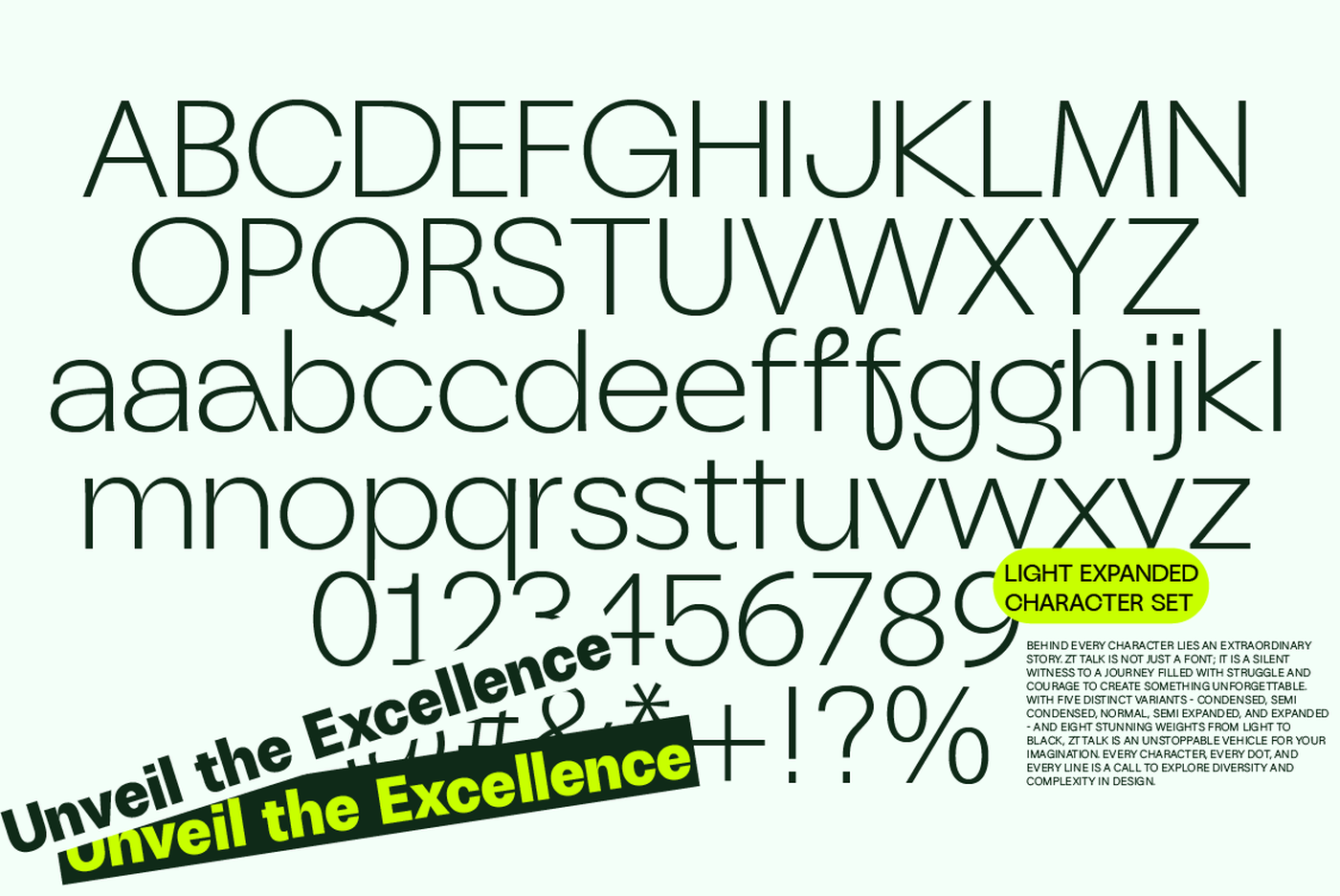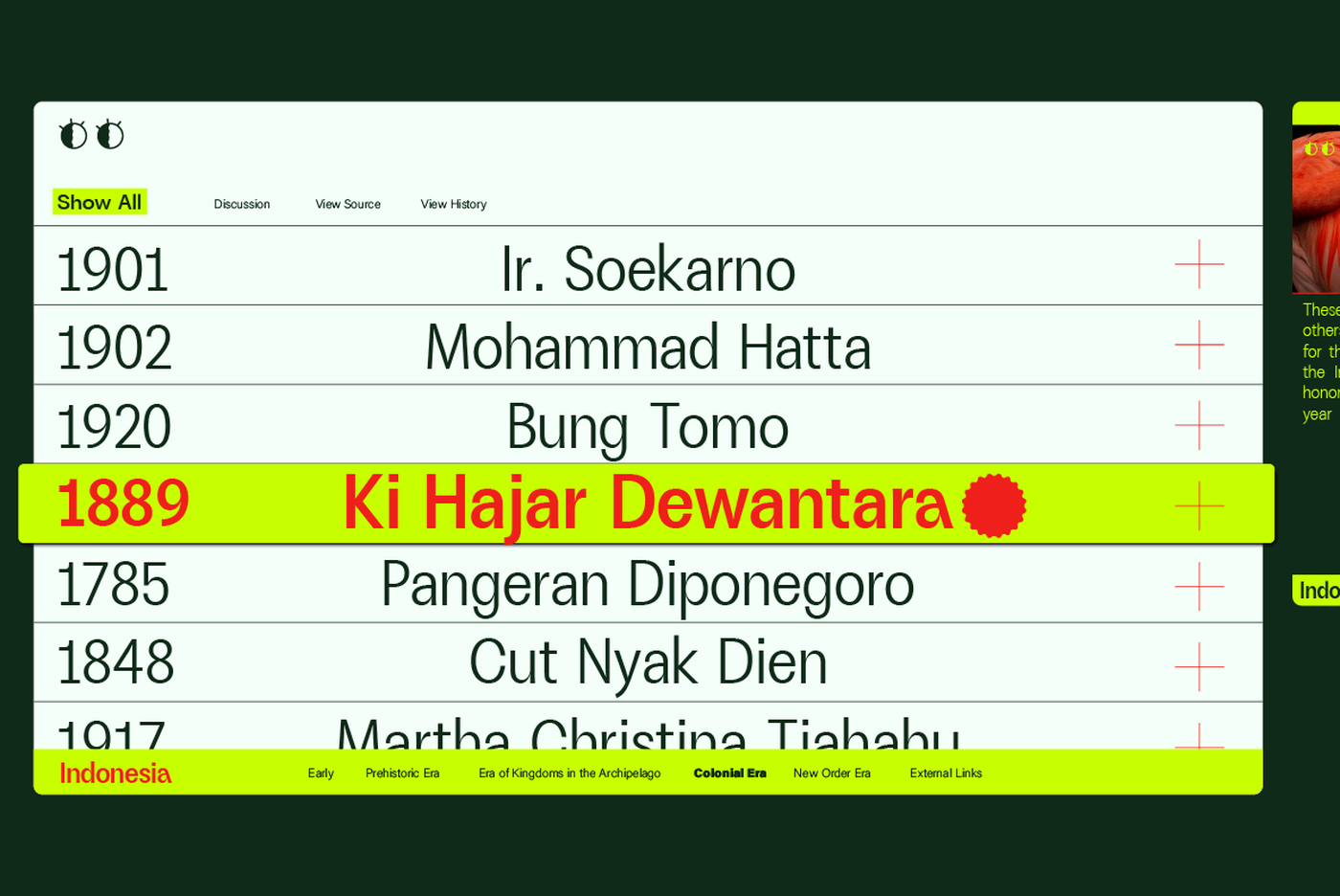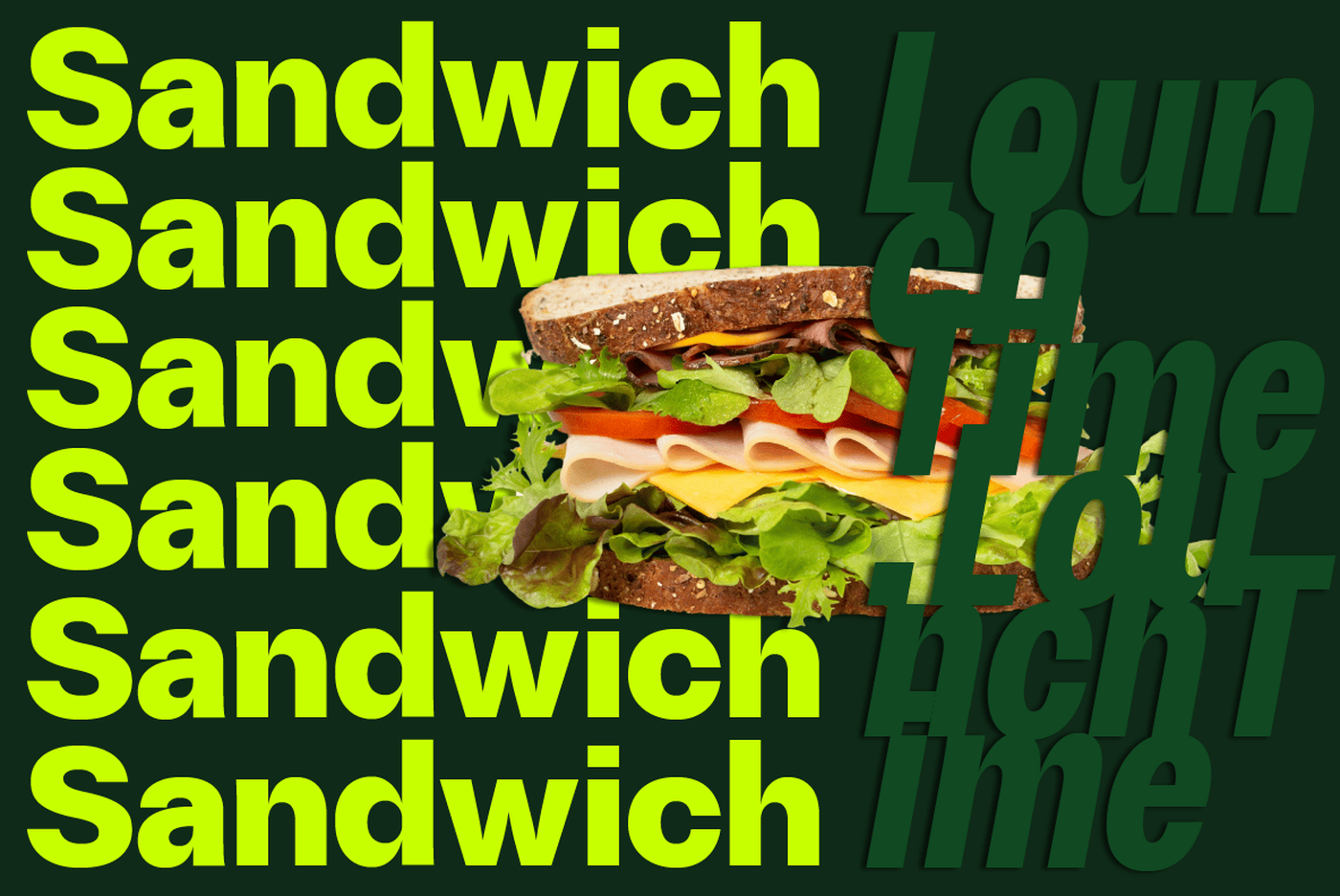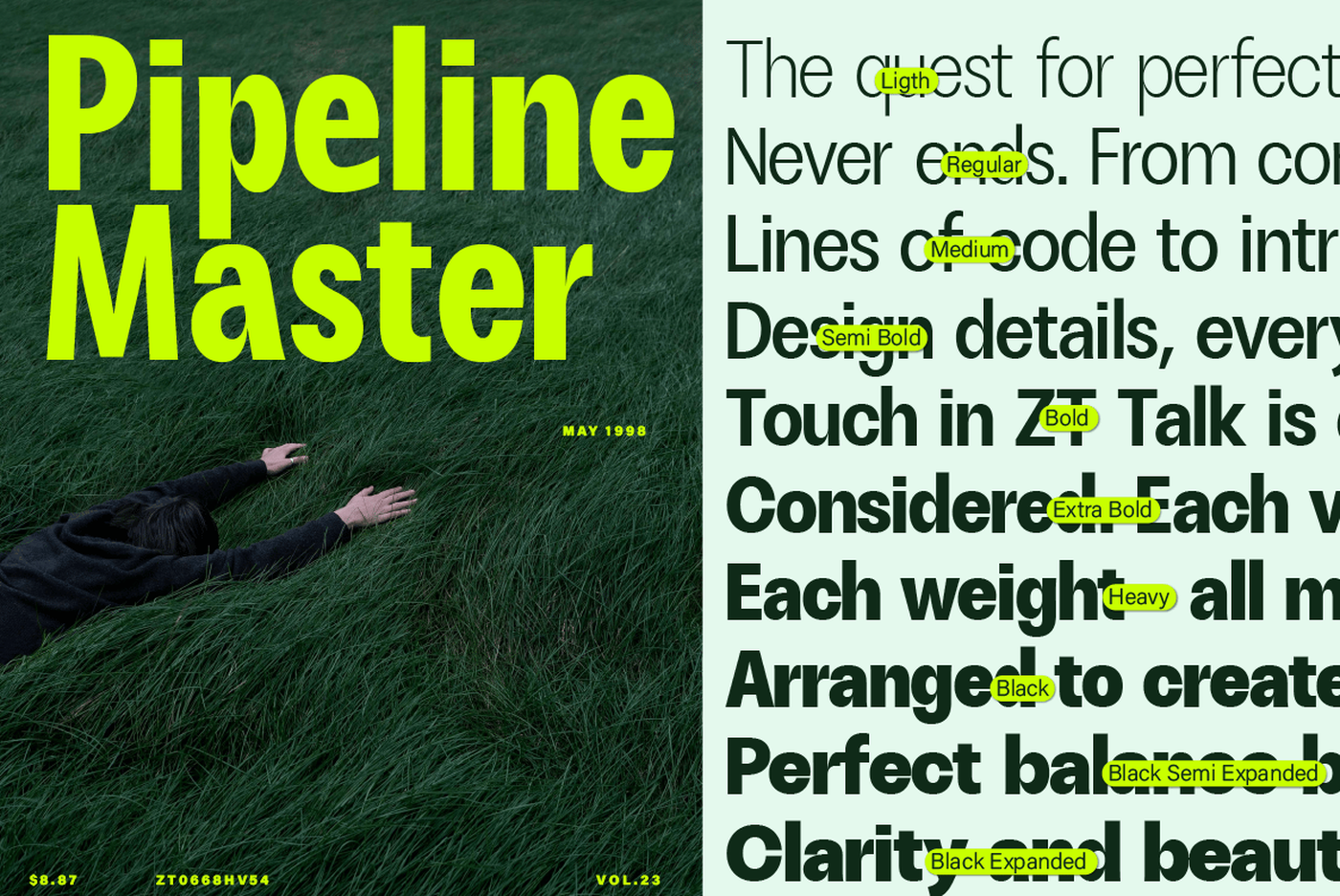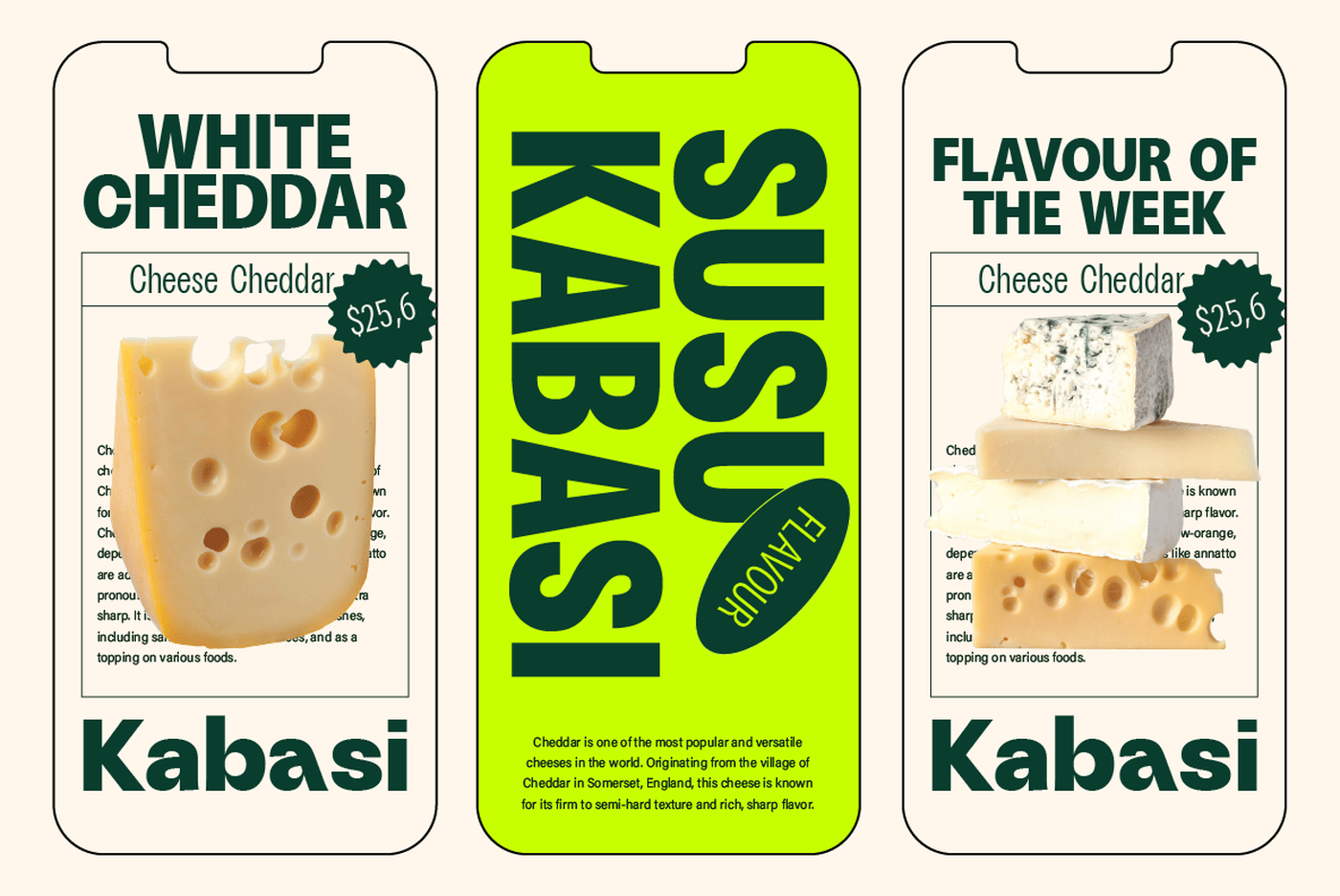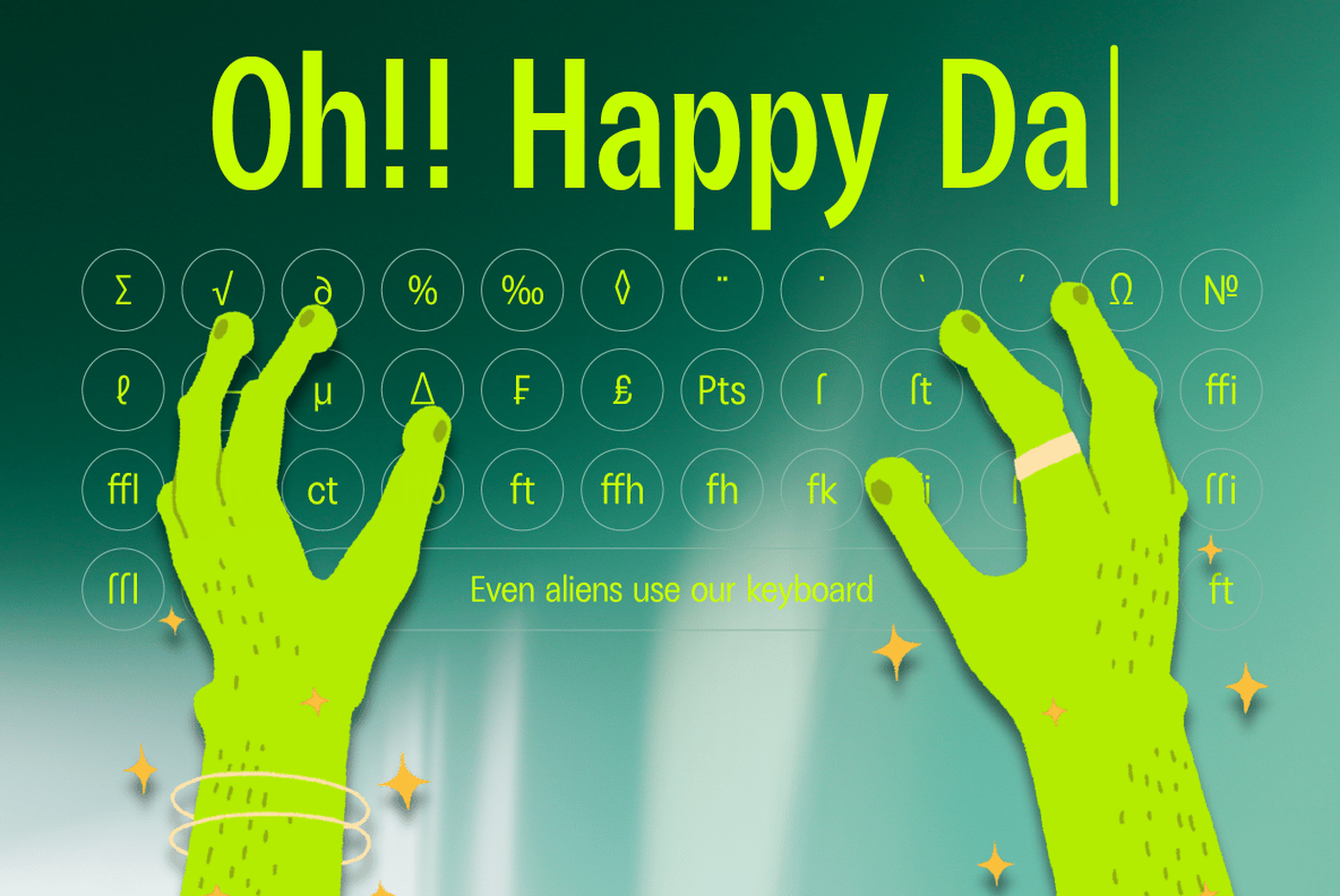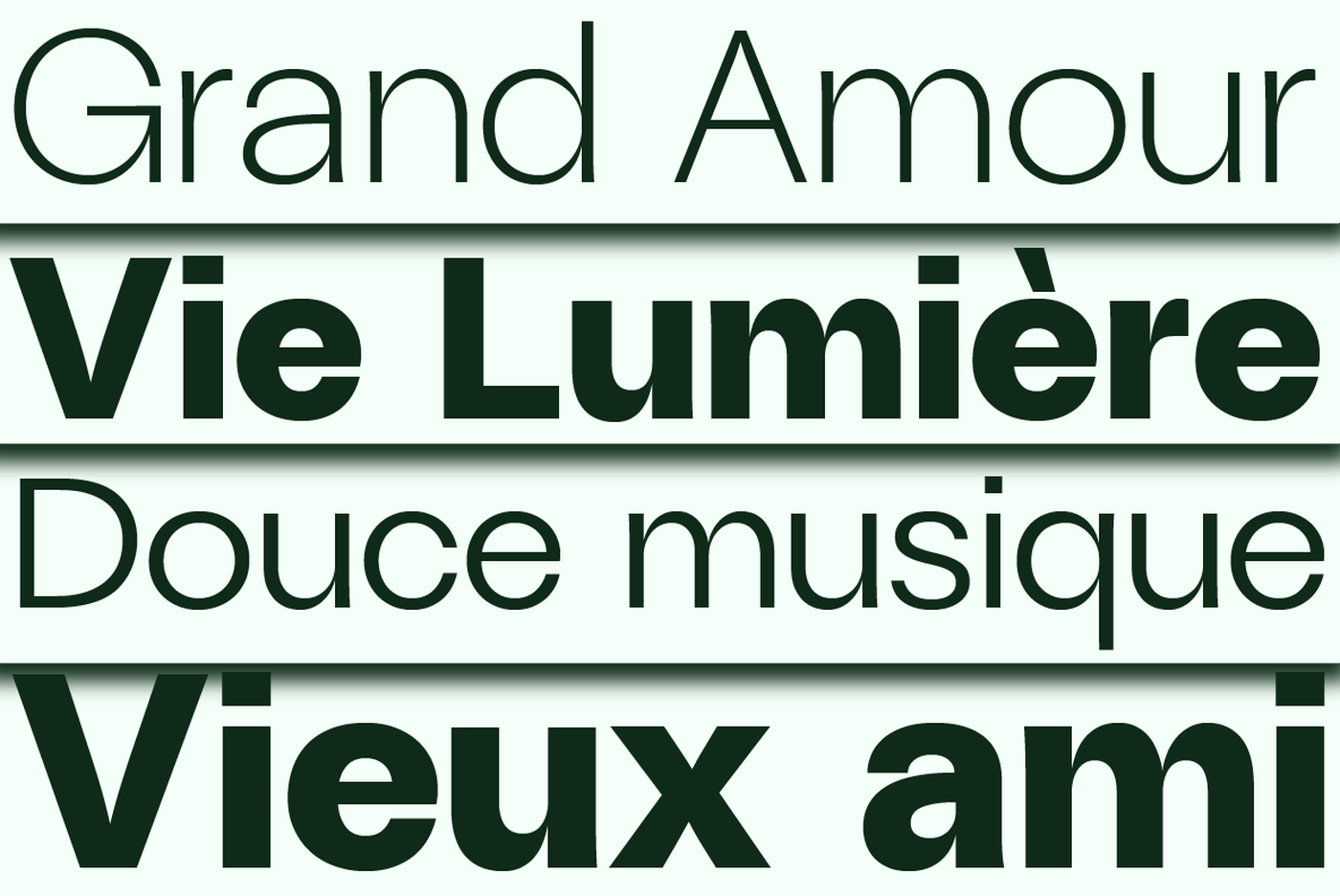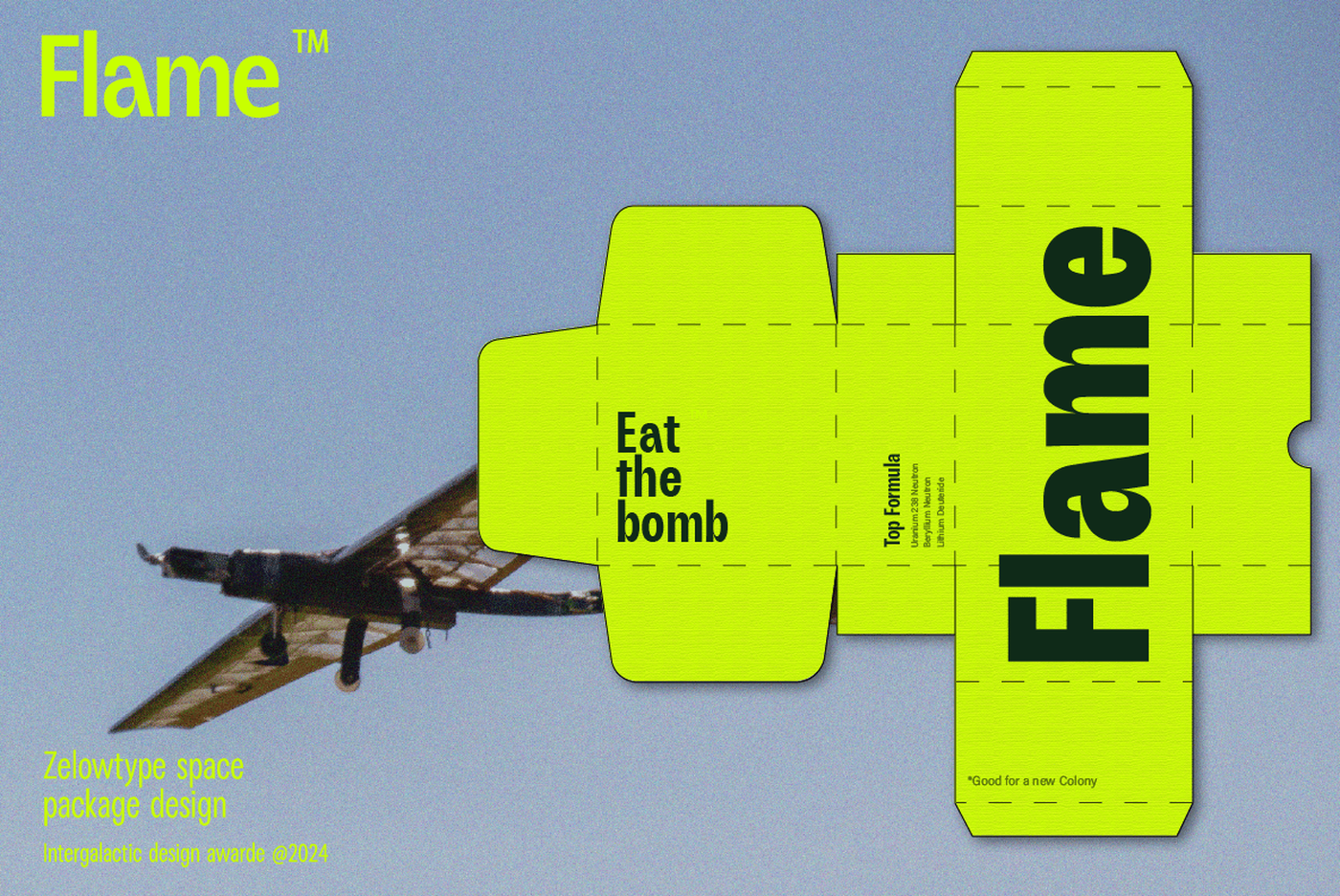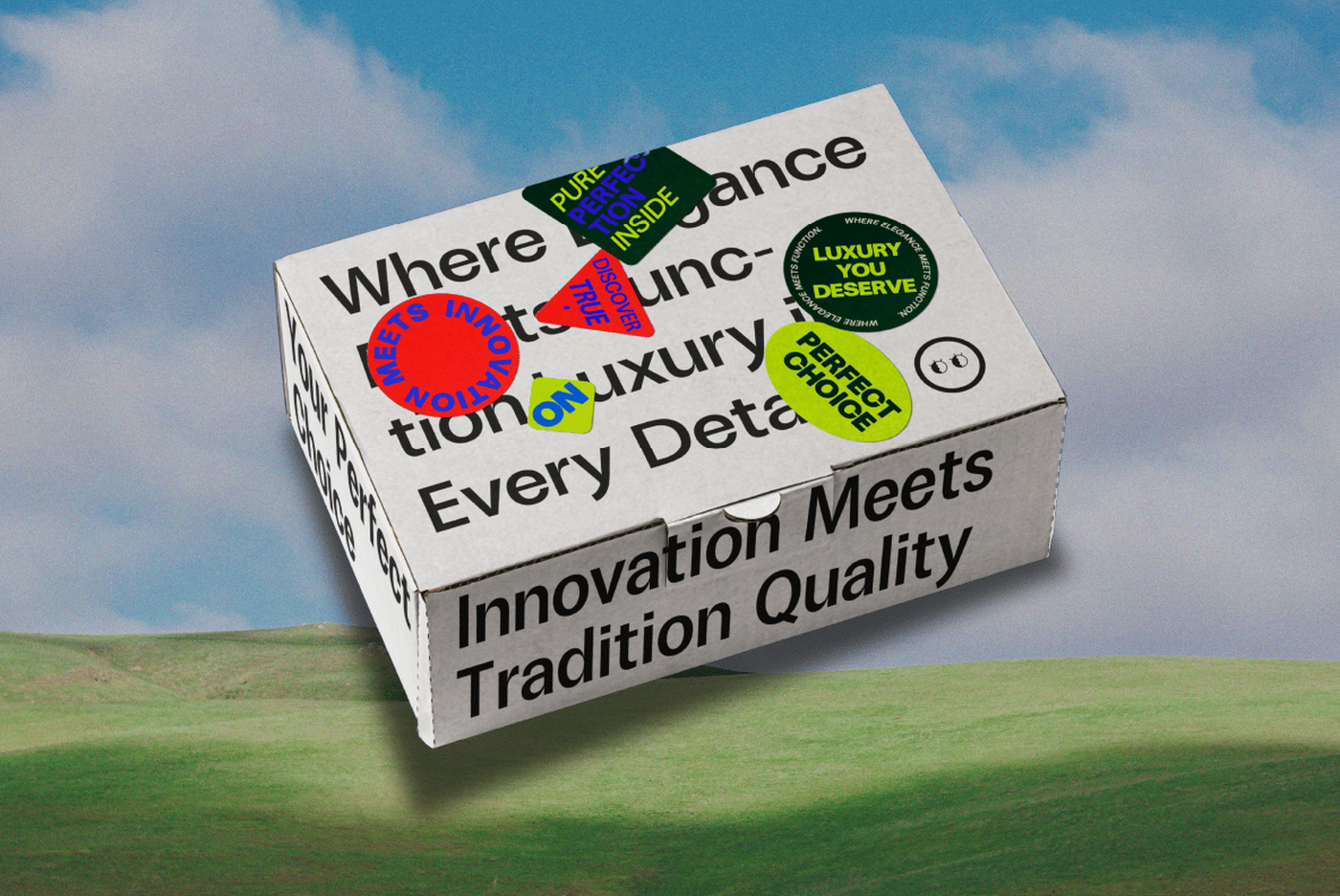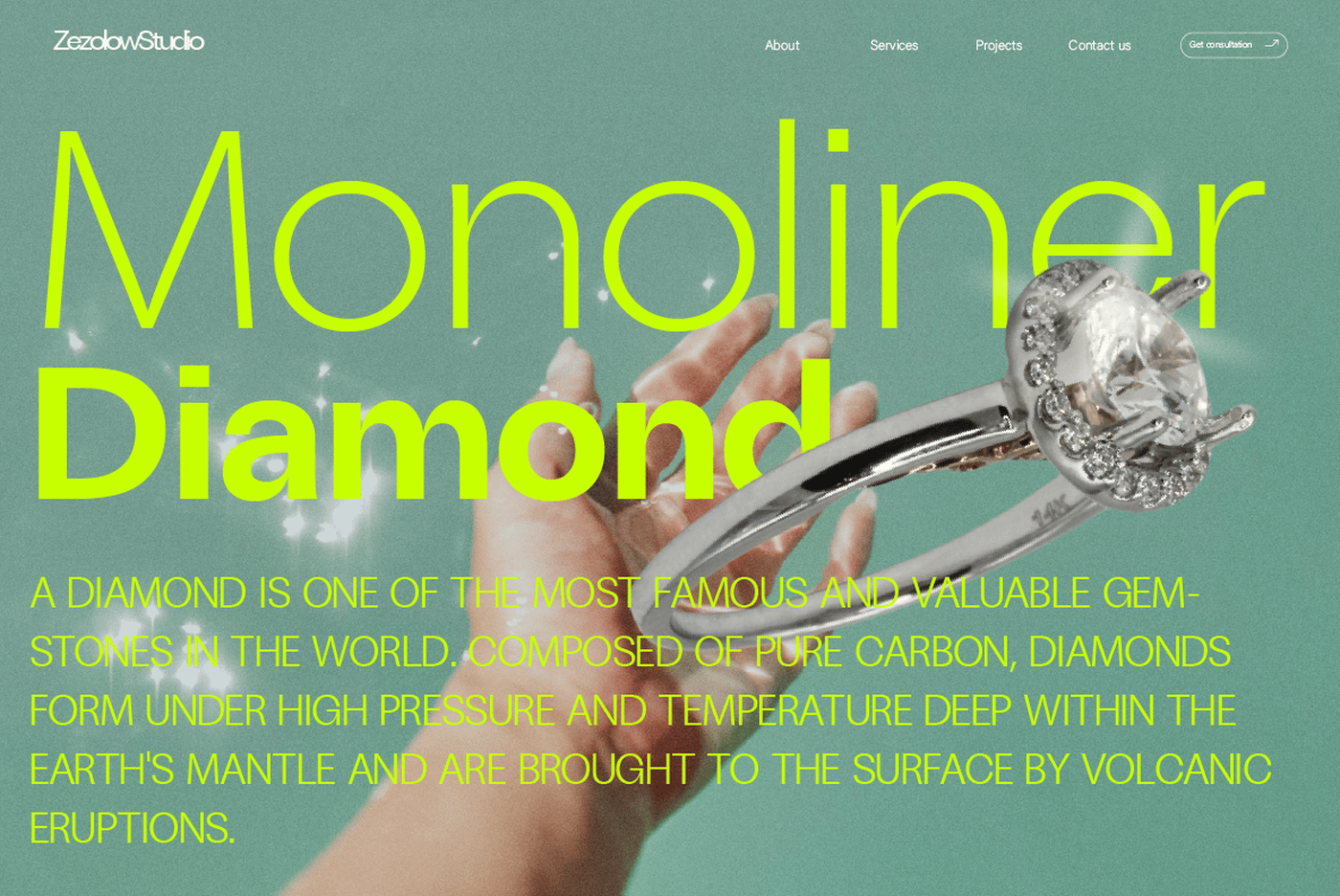
Talk Sans - Sans Serif Font Family
Behind every character lies an extraordinary story. ZT Talk is not just a font; it is a silent witness to a journey filled with struggle and courage to create something unforgettable. With five distinct variants - Condensed, Semi Condensed, Normal, Semi Expanded, and Expanded - and eight stunning weights from Light to Black, ZT Talk is an unstoppable vehicle for your imagination. Every character, every dot, and every line is a call to explore diversity and complexity in design.